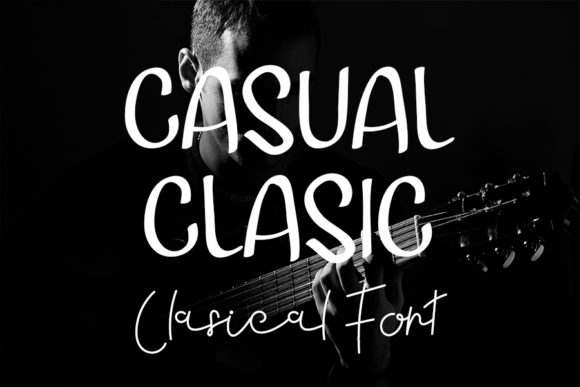
The Ultimate Guide to Casual Clasic Font: Elevate Your Designs with a Touch of Personality
I’ll never forget the time I was working on a project for a client who wanted a font that was both elegant and playful. I spent hours scouring the internet for the perfect match, but nothing seemed quite right. That was until I stumbled upon Casual Clasic, a simple yet unique handwritten font that has since become a staple in my design toolkit. In this article, we’ll dive into the world of Casual Clasic, exploring its features, uses, and everything in between.
An Honest Review of Casual Clasic
So, what makes Casual Clasic so special? Let’s take a closer look.
What I Love About Casual Clasic ✨
- ✅ Natural and Unique Style: Casual Clasic’s hand-drawn feel makes it perfect for a wide range of designs, from invitations to branding materials.
- ✅ Highly Versatile: Whether you’re working on a digital project or a print design, Casual Clasic adapts seamlessly.
- ✅ Easy to Read: Despite its unique style, Casual Clasic remains clear and legible, even at smaller font sizes.
While Casual Clasic is an excellent font, it’s not without its quirks. For instance:
- ⚠️ Limited Formality: Casual Clasic’s playful nature makes it less suitable for very formal or corporate designs.
- ⚠️ Glyph Limitations: As with any font, there may be limitations to the number of glyphs available, which could impact its use in multilingual projects.
While Casual Clasic is undoubtedly unique, there are other fonts that share similar qualities. Here are a few:
- Lobster: A more formal, yet elegant script font perfect for headings and titles.
- Pacifico: A beautiful, modern script font great for designs that need a touch of sophistication.
- Great Vibes: A fun, handwritten font ideal for projects requiring a more casual, friendly feel.
- Alex Brush: A lovely, elegant script font suitable for designs that need a bit of flair.
The Backstory of Casual Clasic: A Designer’s Inspiration
Though the origins of Casual Clasic might be shrouded in mystery, it’s easy to imagine a designer sitting down with a pen and paper, aiming to create a font that felt both natural and unique. Perhaps the designer wanted to craft a font that would allow anyone to add a personal touch to their designs, without the need for extensive design experience.
| Font Name | Casual Clasic Font |
| Author | FL Space |
| Q: What makes Casual Clasic unique? | A: Casual Clasic’s natural and unique handwritten style sets it apart. |
| Q: Is Casual Clasic suitable for body text? | A: While it’s primarily designed for headings, Casual Clasic can be used for body text in certain contexts, especially where a personal touch is desired. |
| Q: Does Casual Clasic support OpenType features? | A: Yes, Casual Clasic supports various OpenType features, allowing for a range of stylistic alternates and glyphs. |
In conclusion, Casual Clasic is a versatile and unique font that can elevate your designs with its natural, handwritten style. Whether you’re a designer, crafter, or hobbyist, Casual Clasic offers a world of creative possibilities limited only by your imagination.